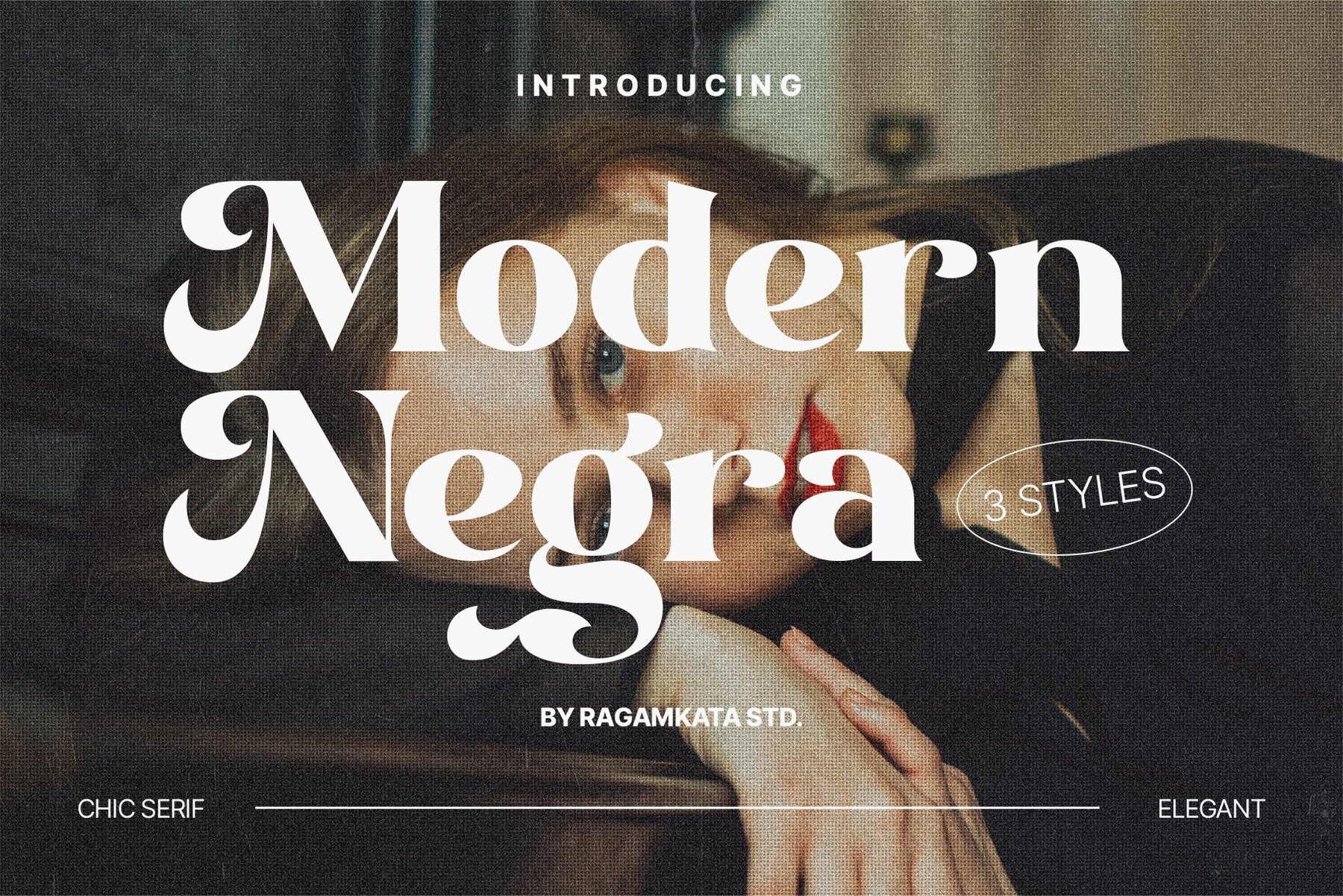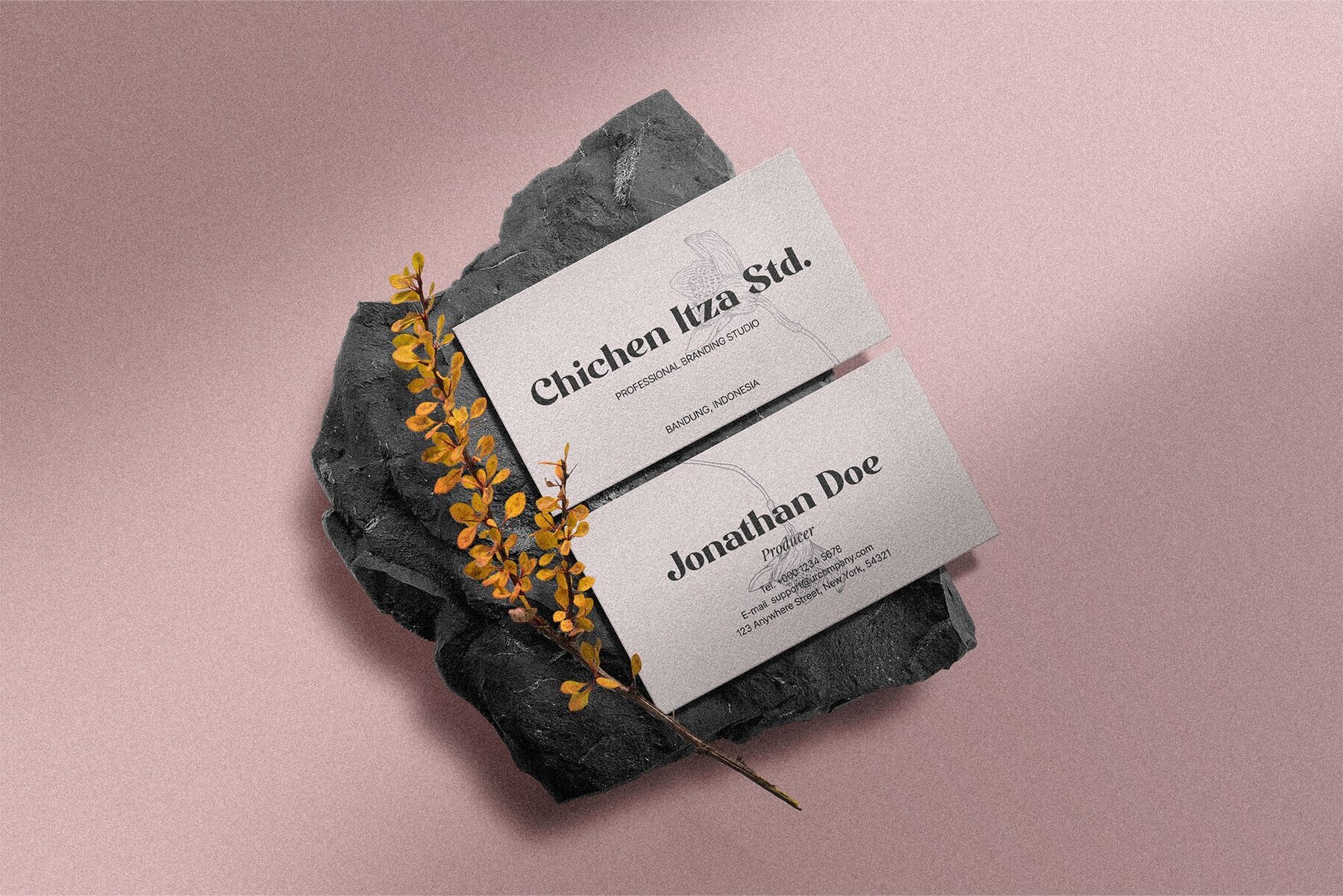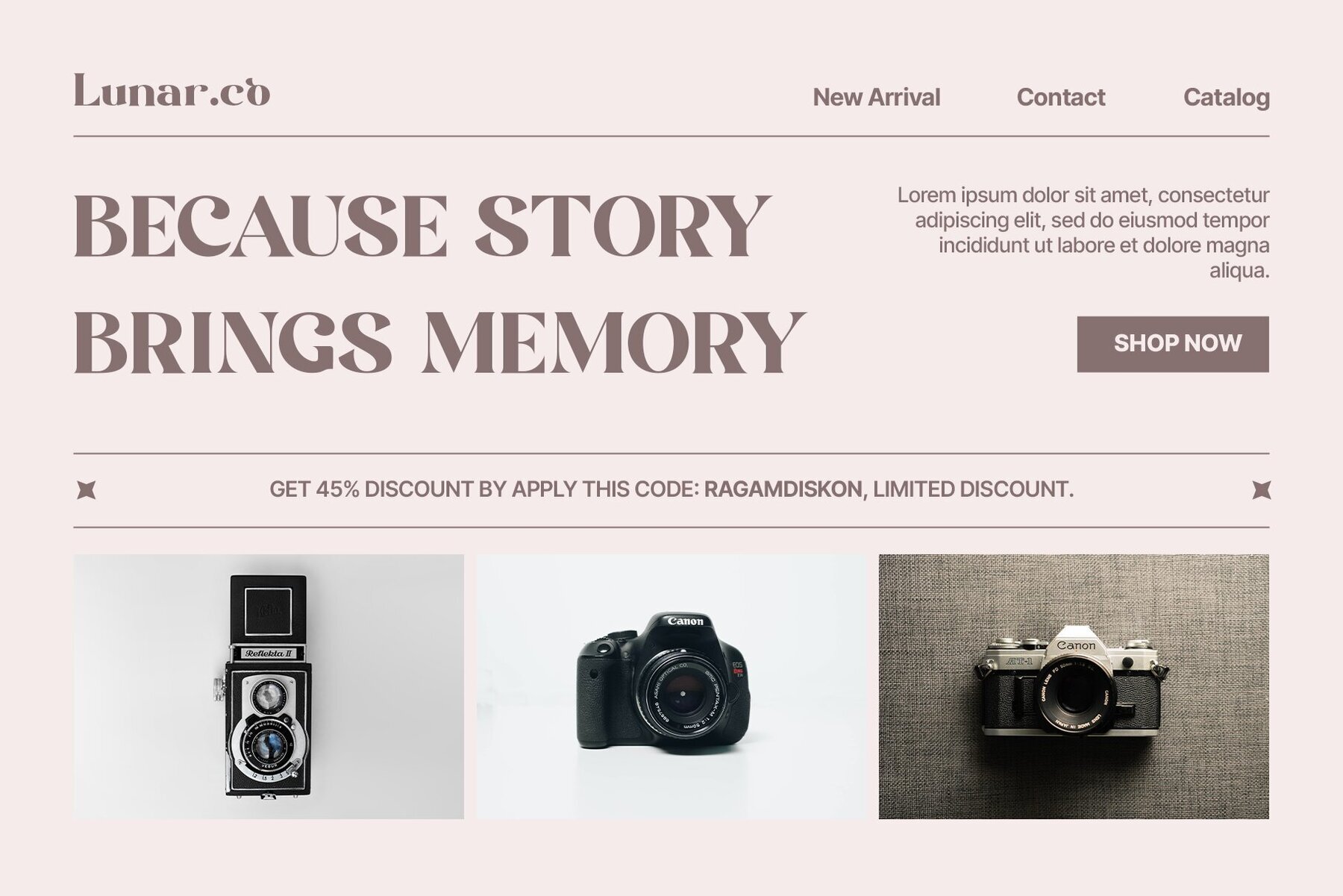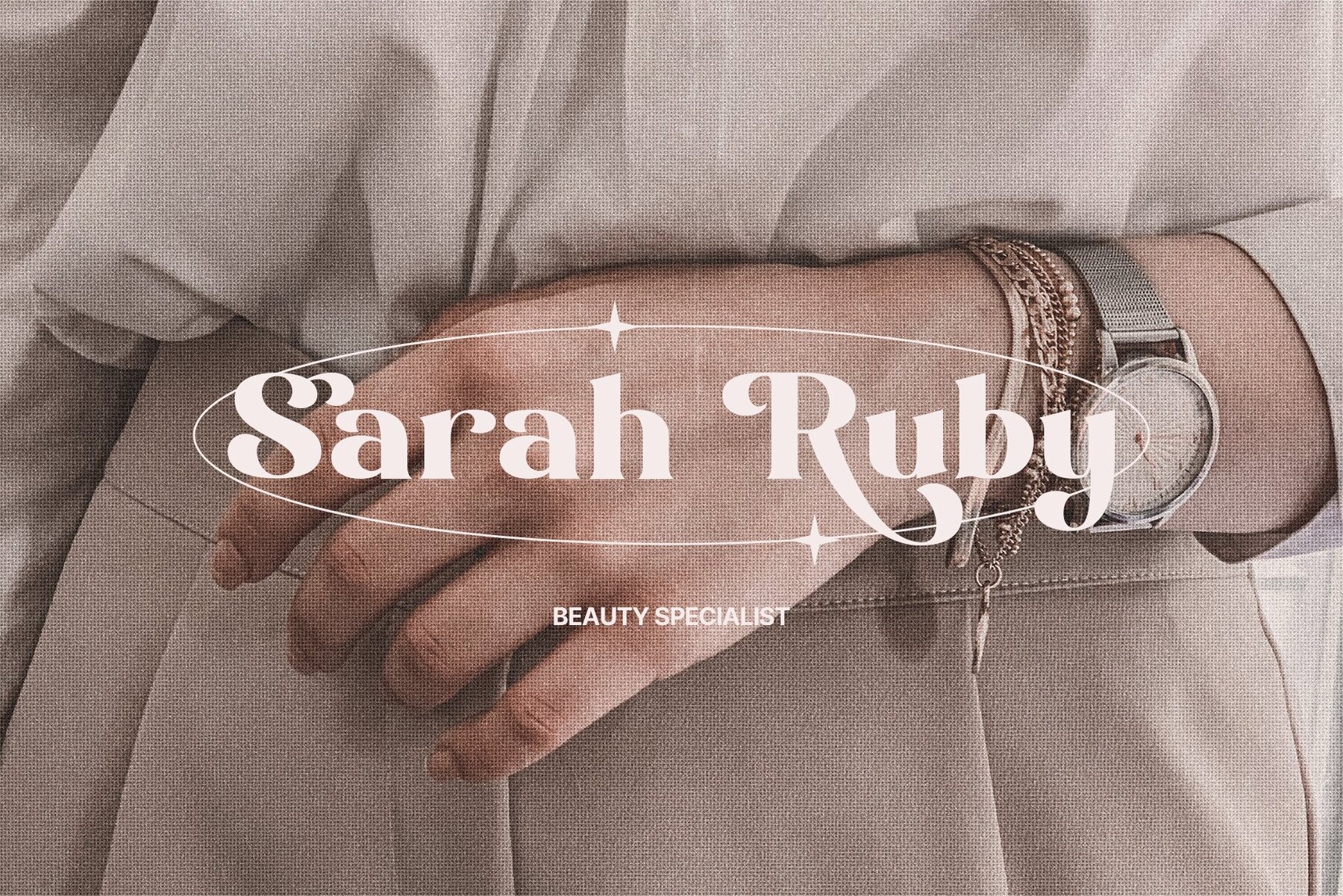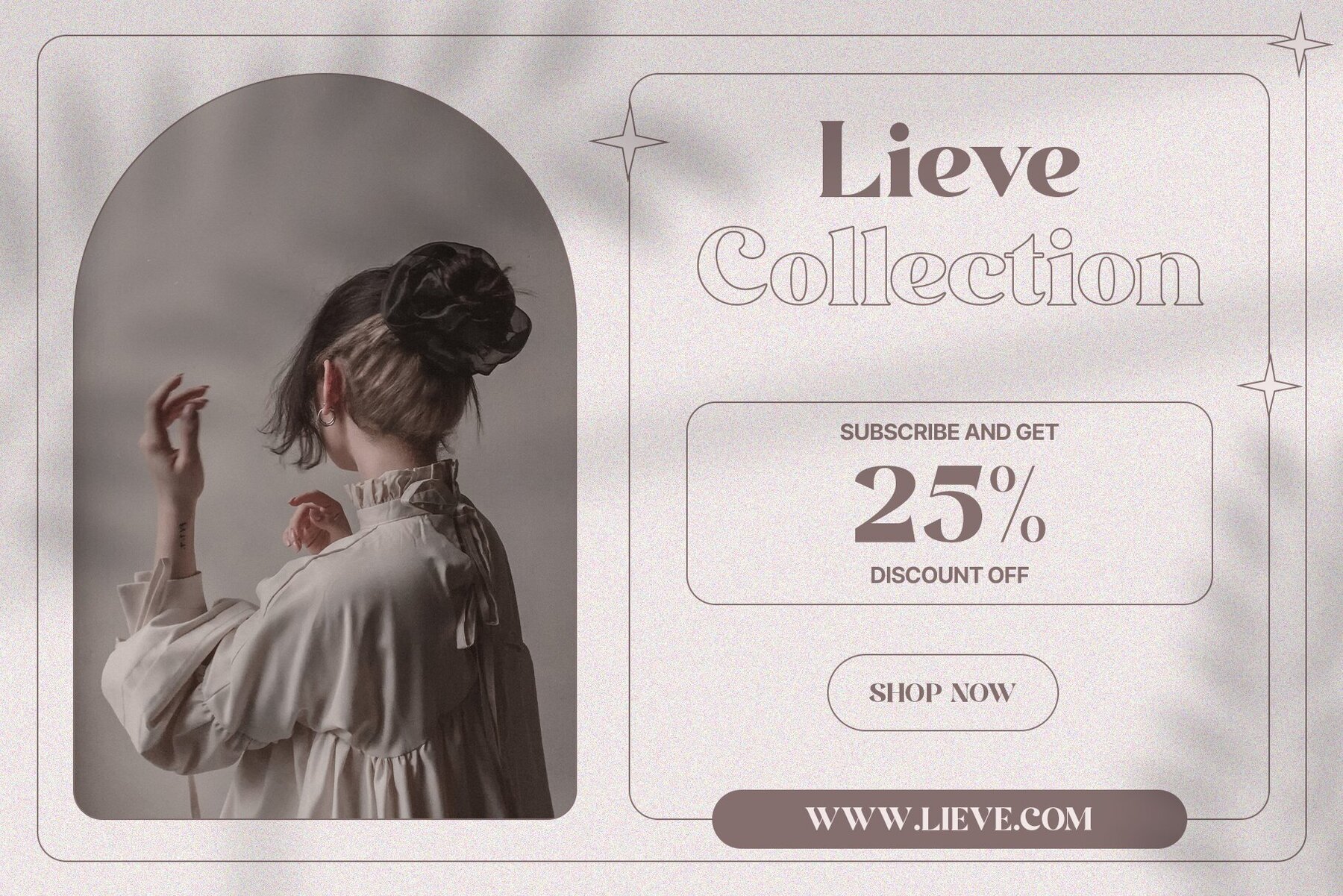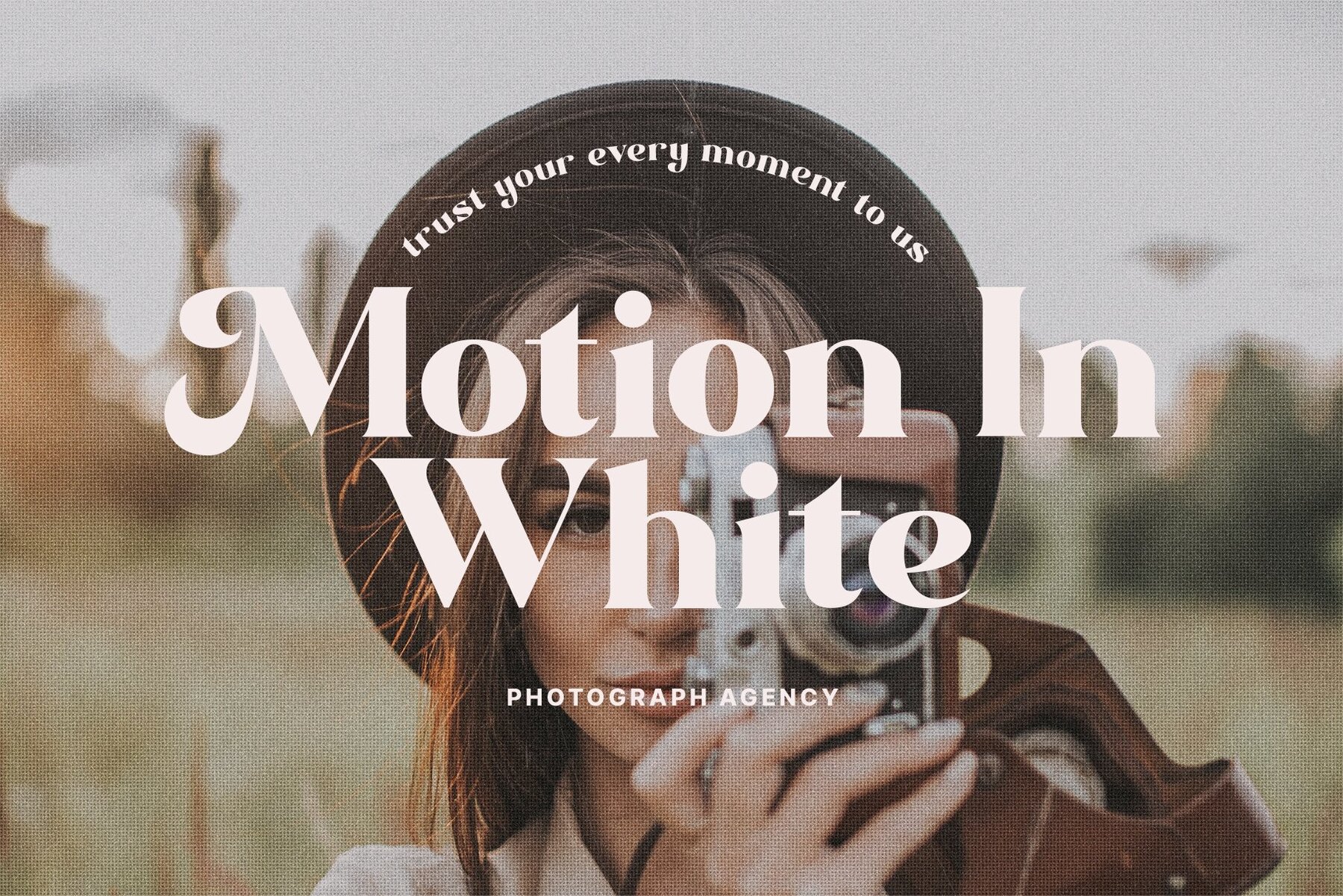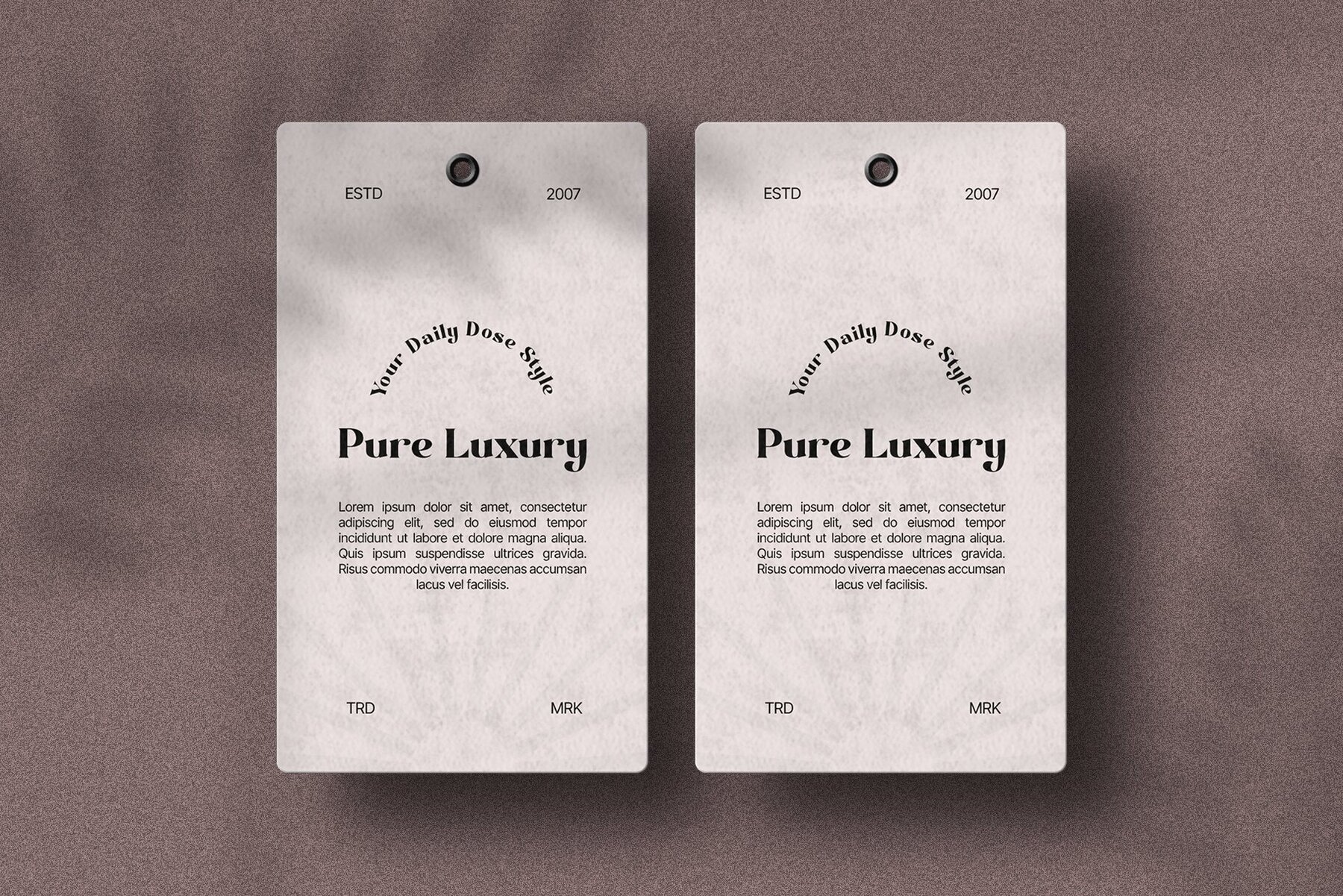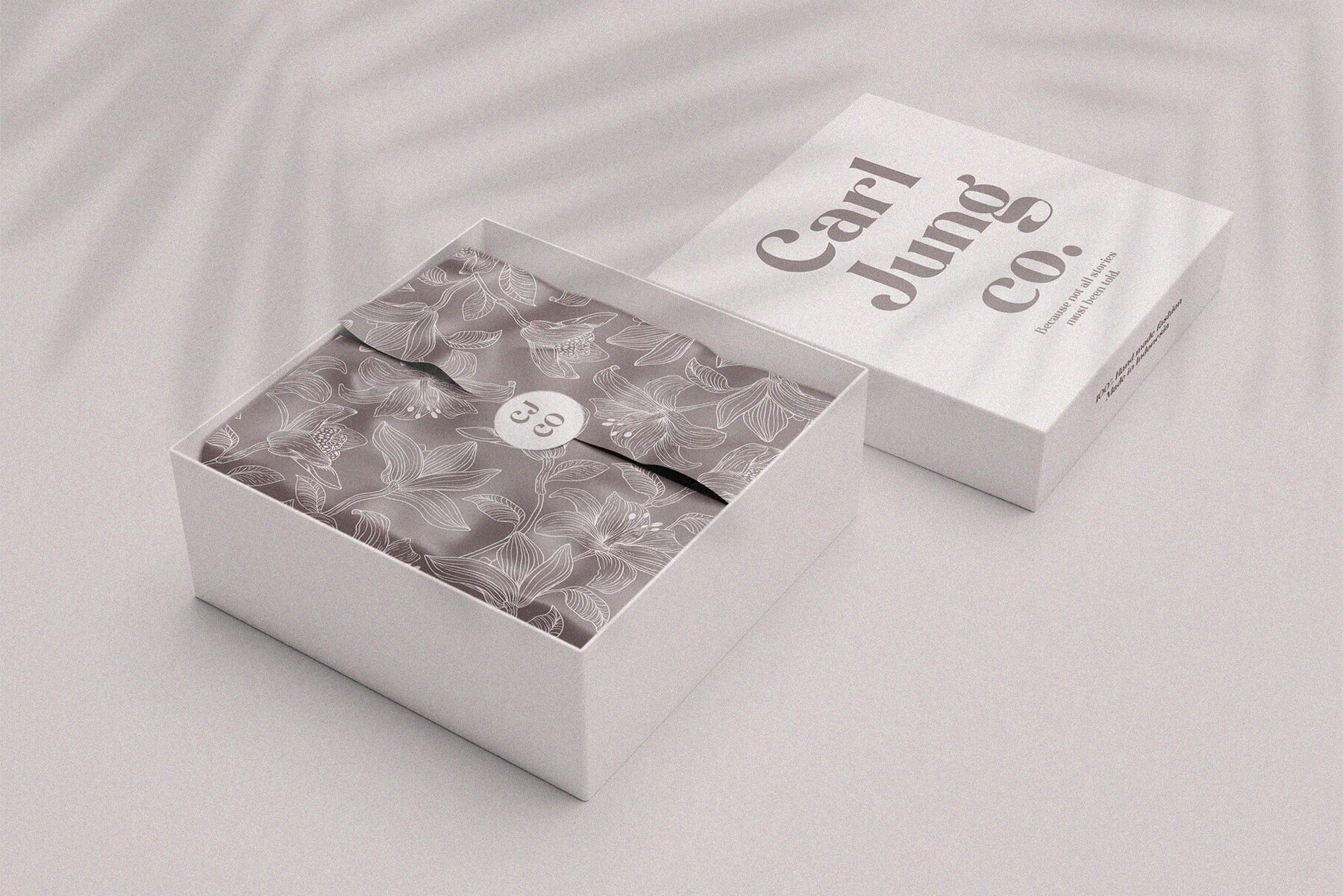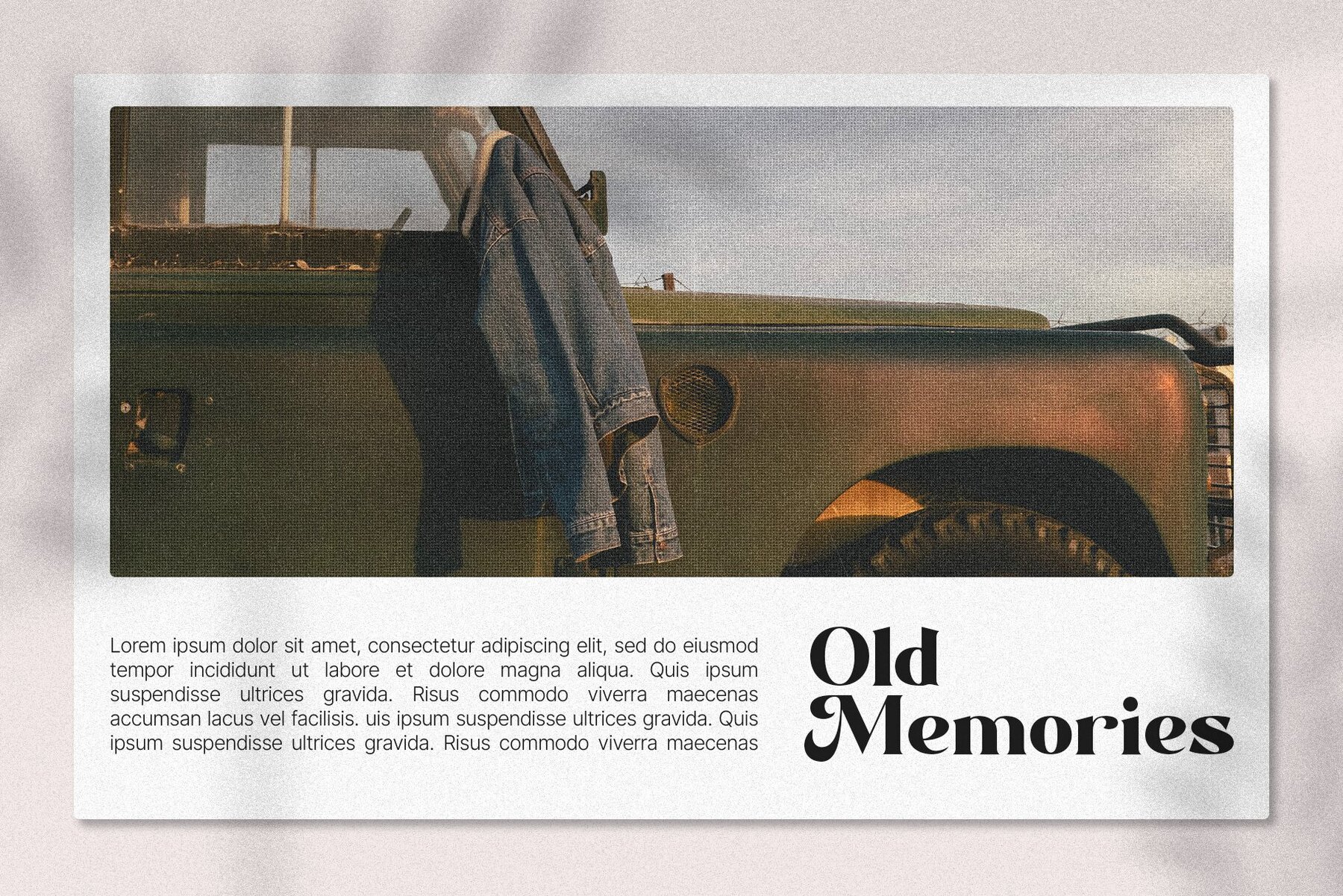
Modern Negra Font
Modern Negra is a sophisticated serif typeface designed to bring elegance to various creative projects. Its unique alternatives and precise kerning make it ideal for luxury logos, classy editorial designs, and high-end branding. Whether you're working on a fashion magazine, cosmetic brand, or modern advertising campaign, Modern Negra provides the perfect touch of class. It's also well-suited for invitation cards, art quotes, home decor, book titles, special events, and more. This typeface offers extensive multilingual support, ensuring it meets a wide range of design needs with ease and flexibility.Modern Negra: Elegant Serif with Unique Alternatives
Features of Modern Negra